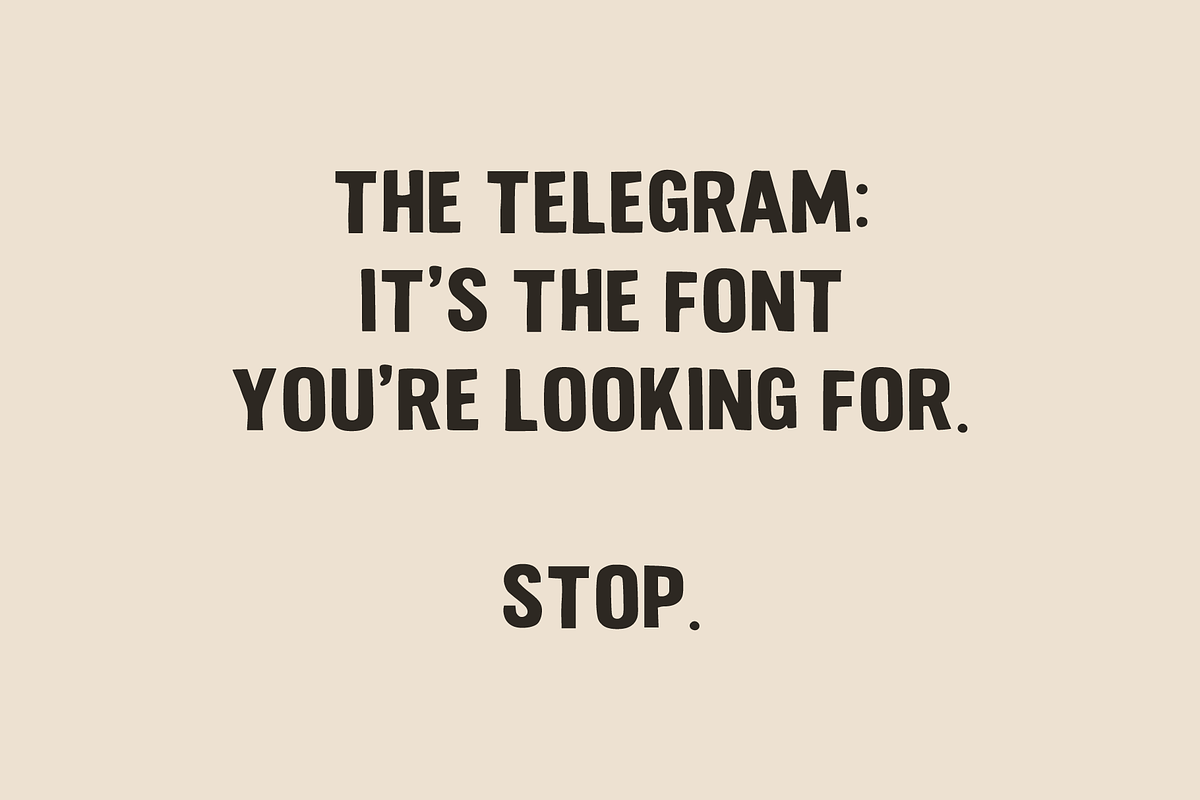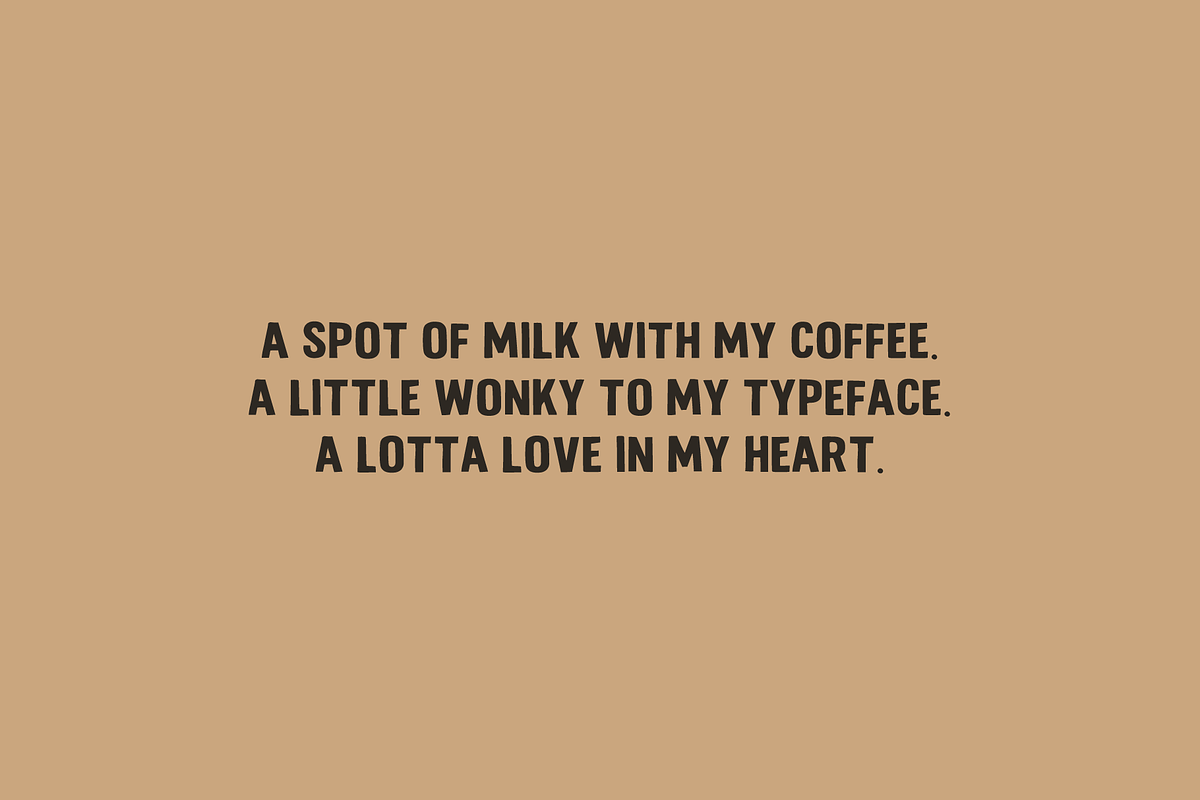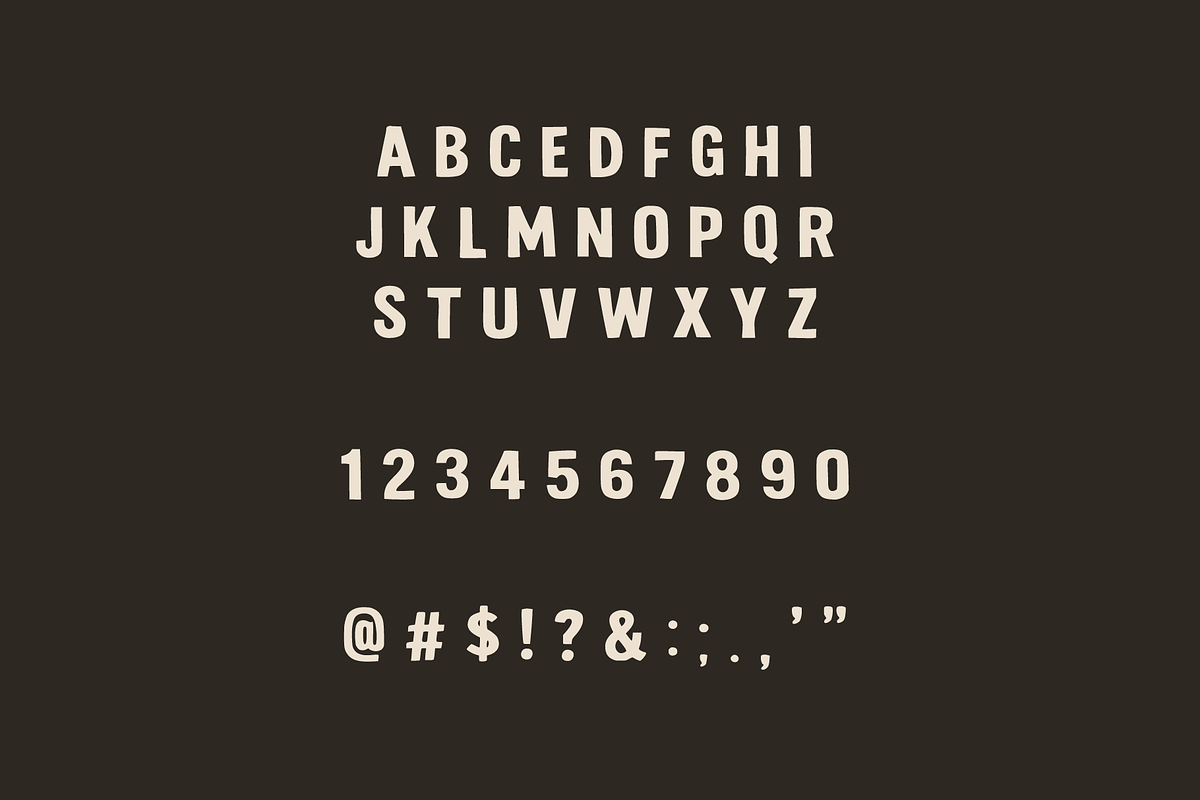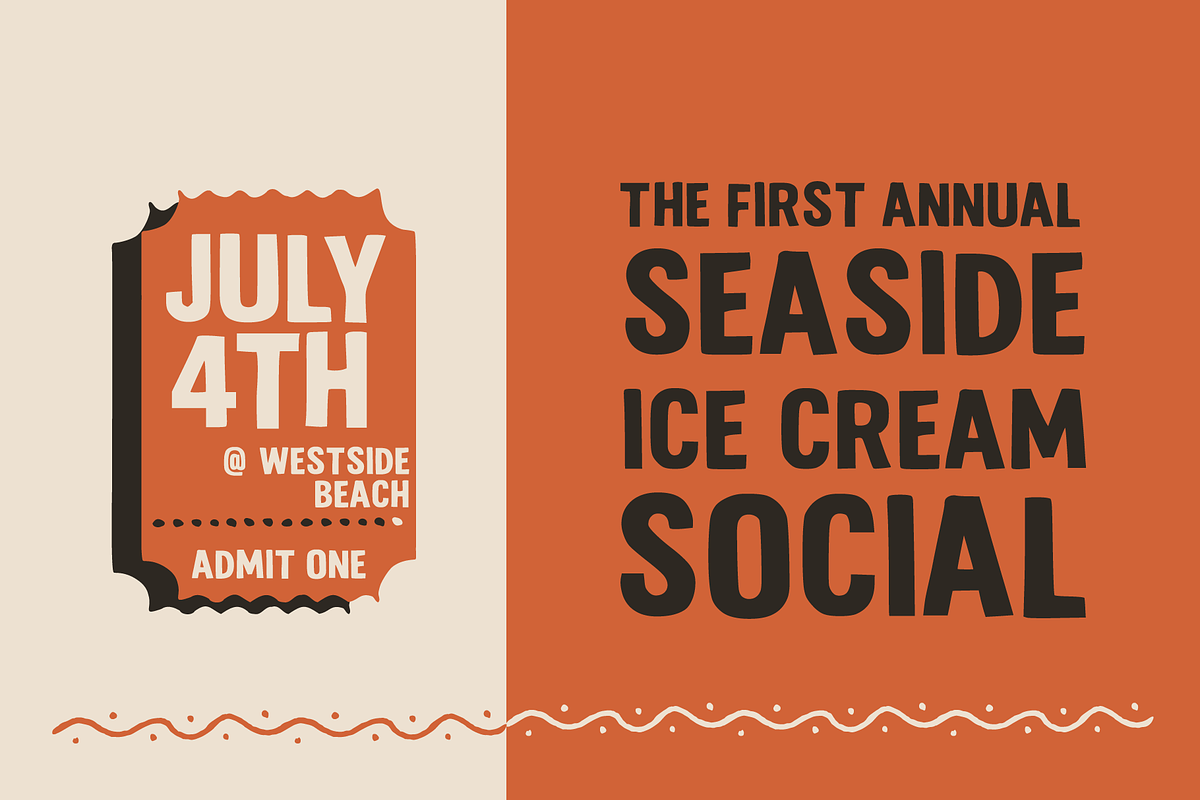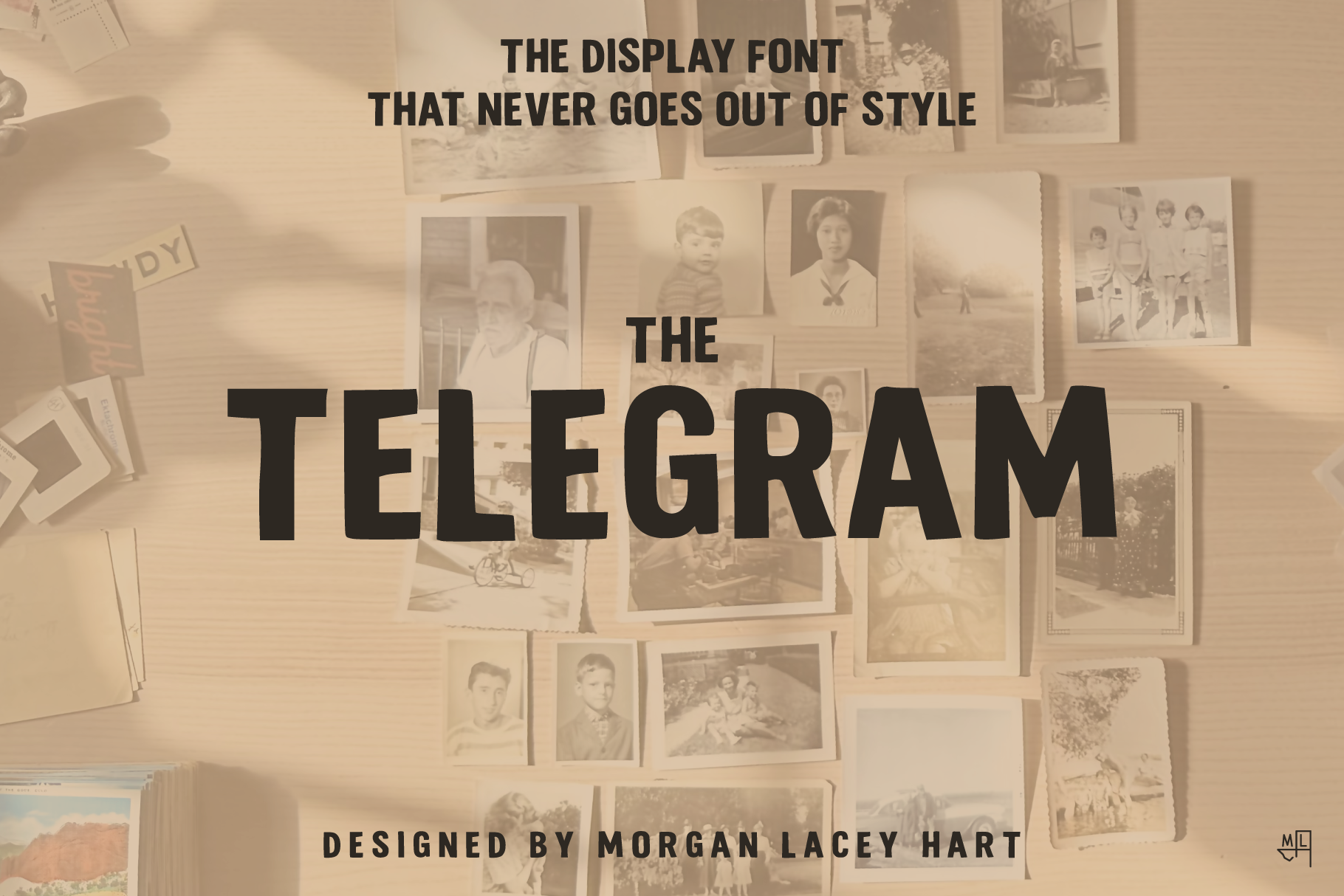
The Telegram Typeface
Italic Inspired by telegram headings from the early 1900s, this display typeface has just the right amount of character to be timeless. Italic
Wearing a worn-in vintage style without pretension, The Telegram is perfect for approachable signage and titles. It's fun but not childish; it's a throwback without being overly distressed. Like your favorite pair of jeans, The Telegram typeface is never out of vogue.